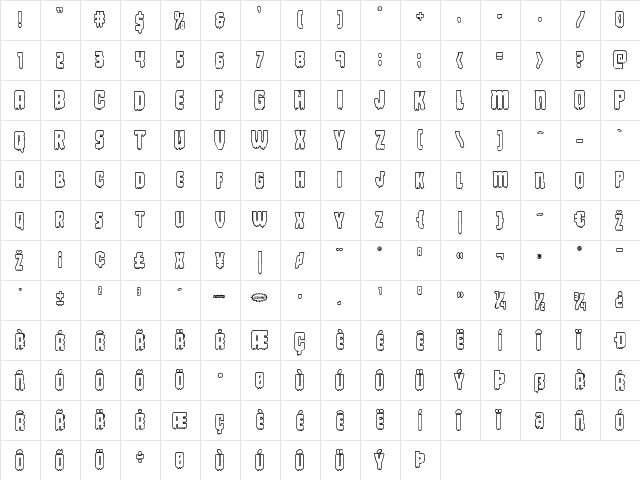
Deathblood Bold Outline Regular
Design Context for Deathblood Bold Outline Typeface
Deathblood Bold Outline leans into the macabre with letterforms designed to disturb and intrigue in equal measure.
Perfect for anything that needs to unsettle — game titles, horror branding, and macabre invitations.
Font Pairing: Pair with a clean neutral sans-serif for body copy to let Deathblood Bold Outline's character lead without overwhelming the composition.
Pro Tip: Use Deathblood Bold Outline at larger display sizes for maximum impact. Consider generous tracking to let the disturbing character of each letterform breathe.